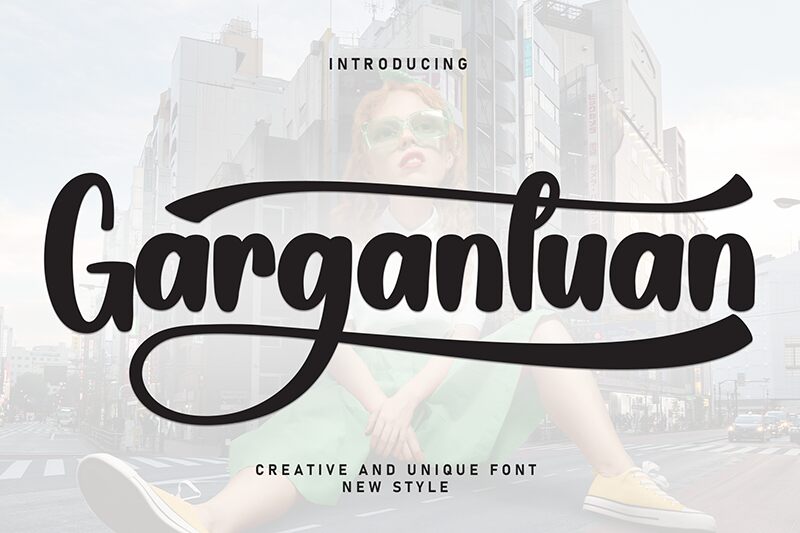
Gargantuan
Gargantuan font by Scratchones combines a brush style with modern appeal. The free typeface with its friendly, casual, and approachable characters immediately draws attention in designs pleasing audience with every single look. While sometimes a retro-inspired touch becomes apparent, the general appearance stays clean and dedicated to its purpose.
The free font can be specifically useful for a variety of design directions which include product packaging designs, magazine covers, logotypes, product labels & tags, business cards, advertising campaigns headlines, posters/flyers titles or body texts and many more both web as well as editorial projects.